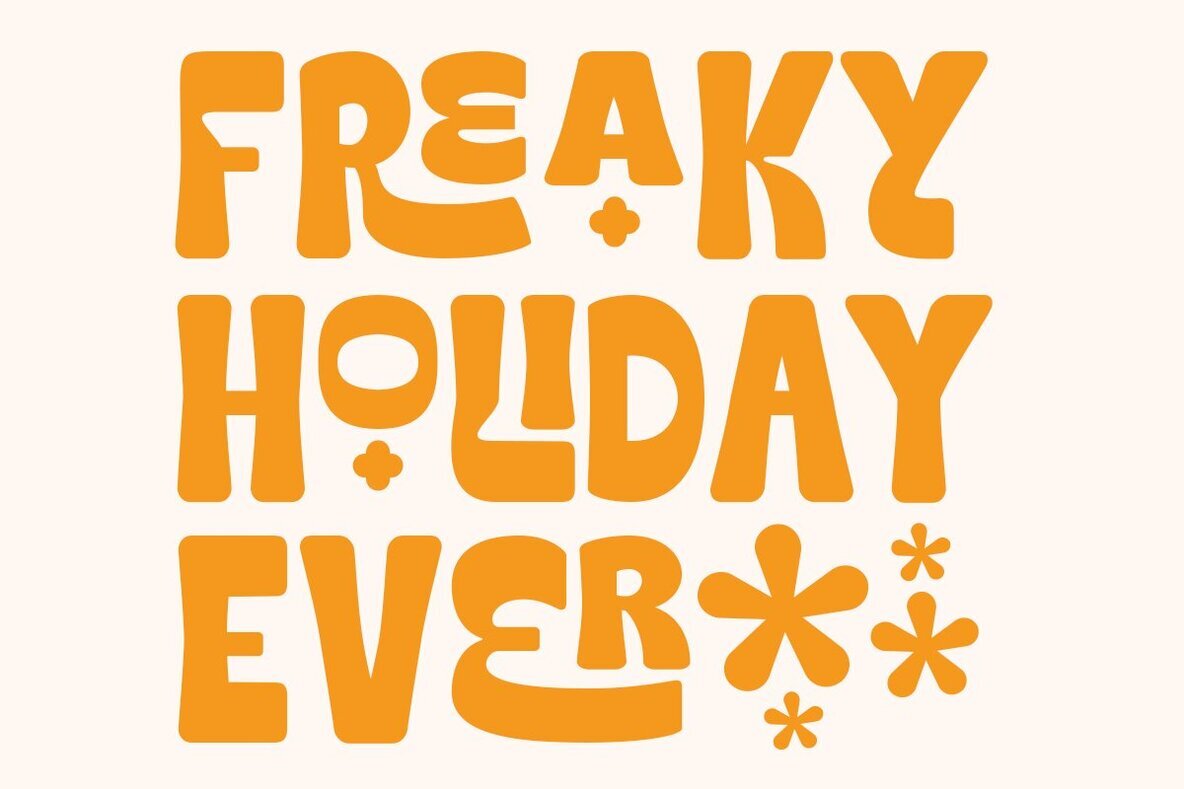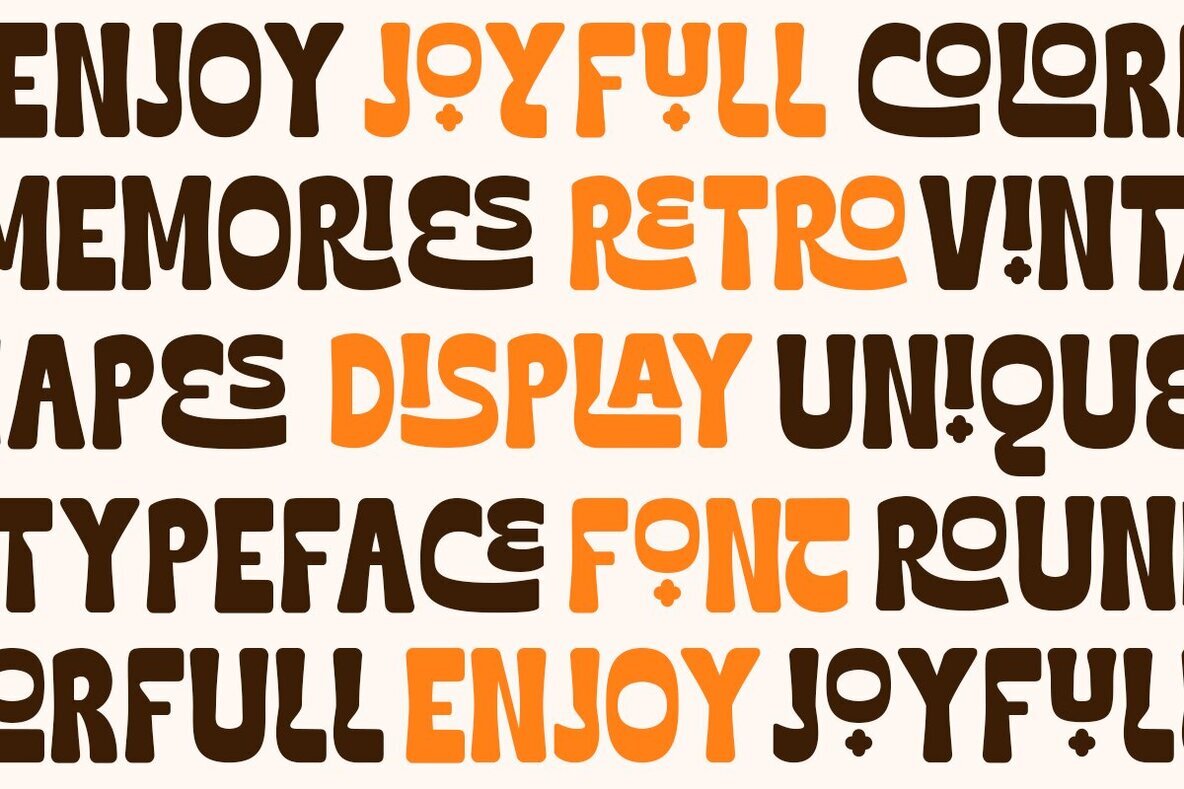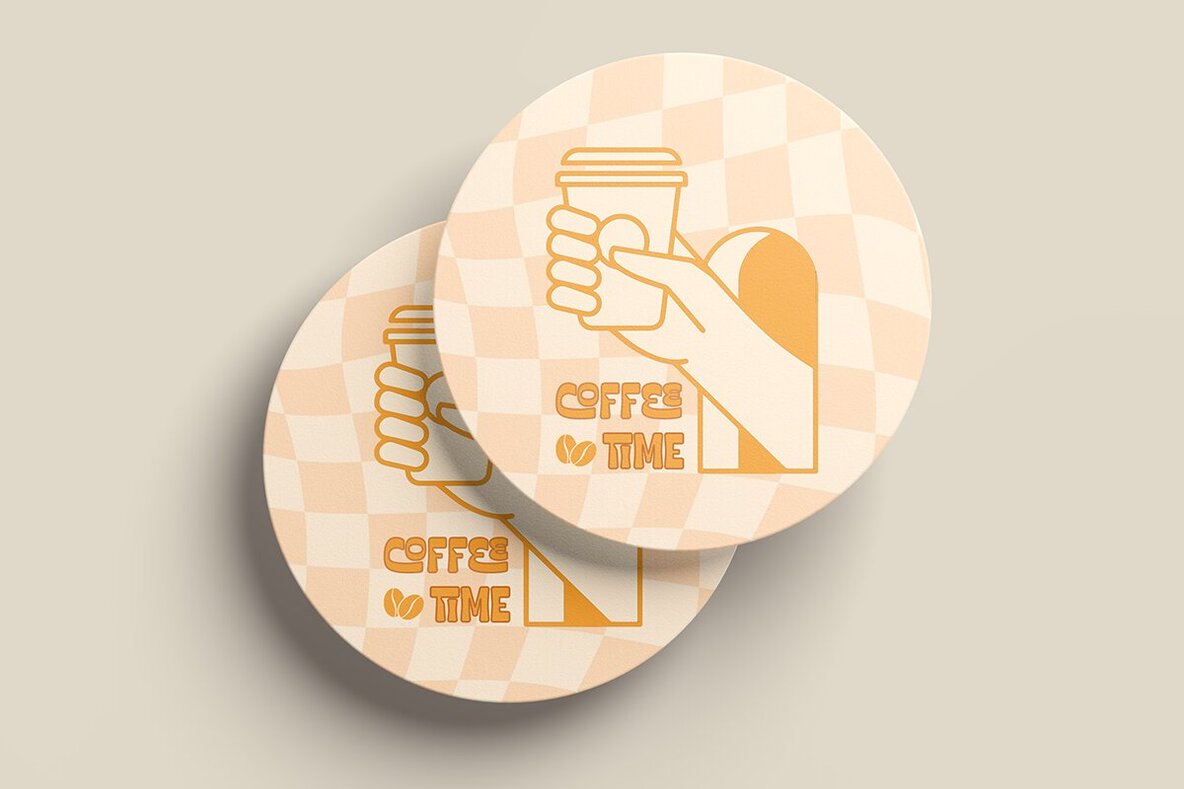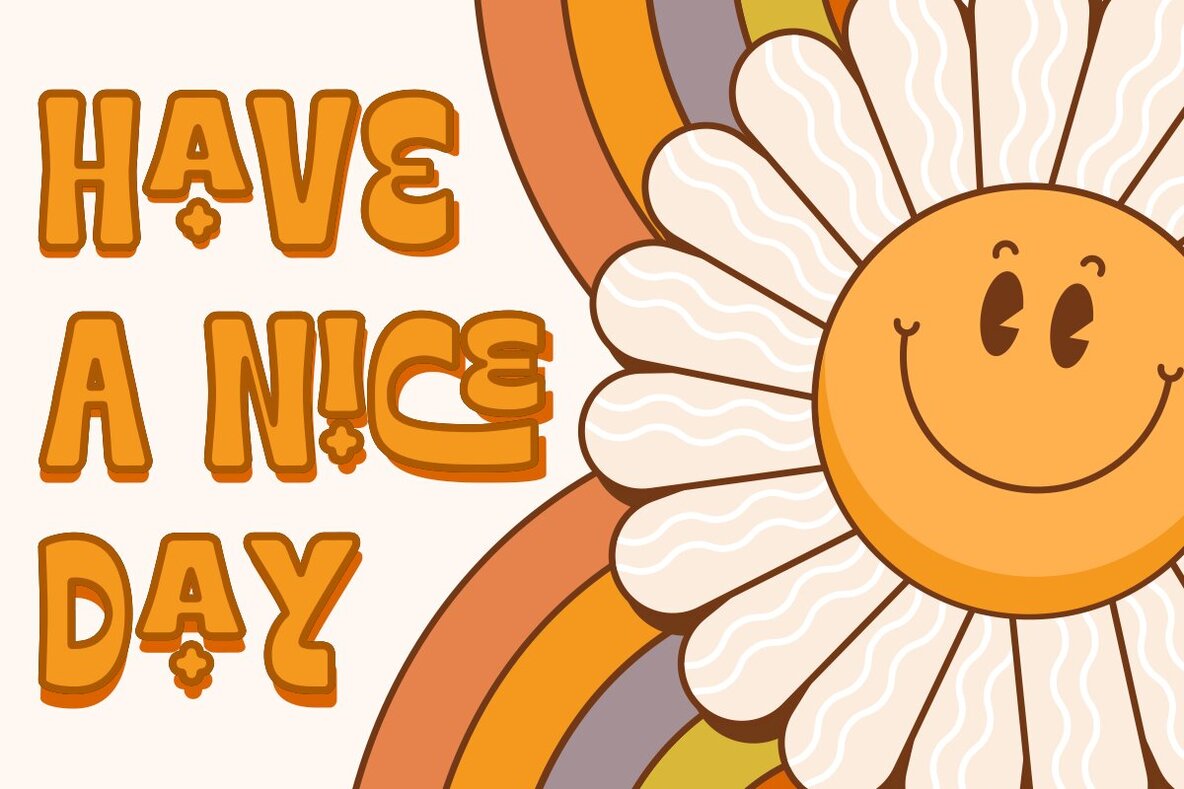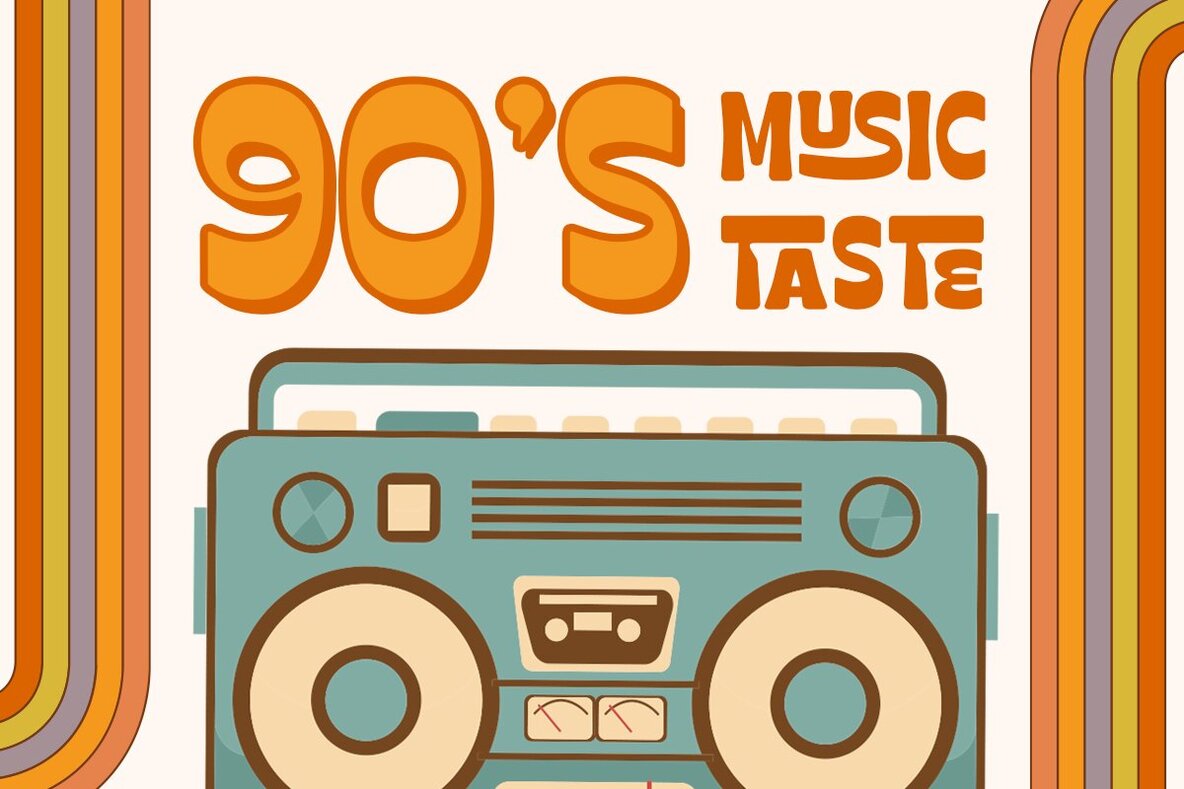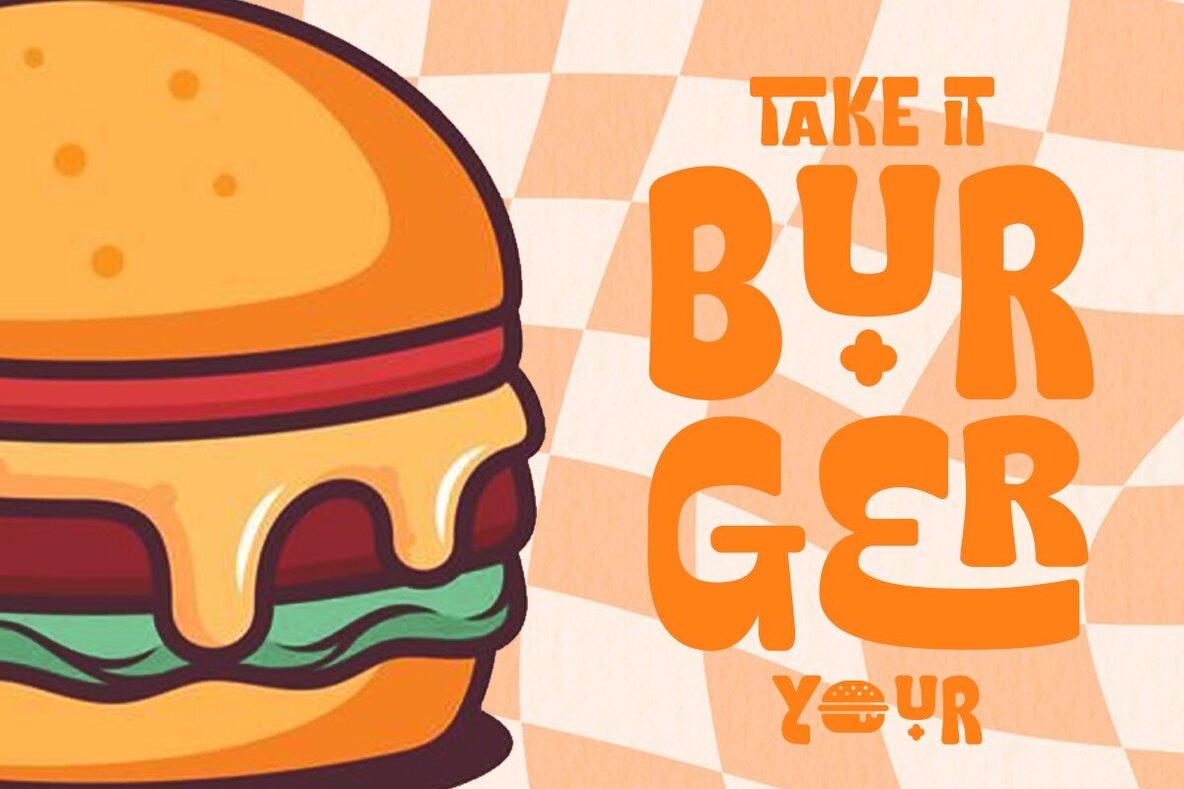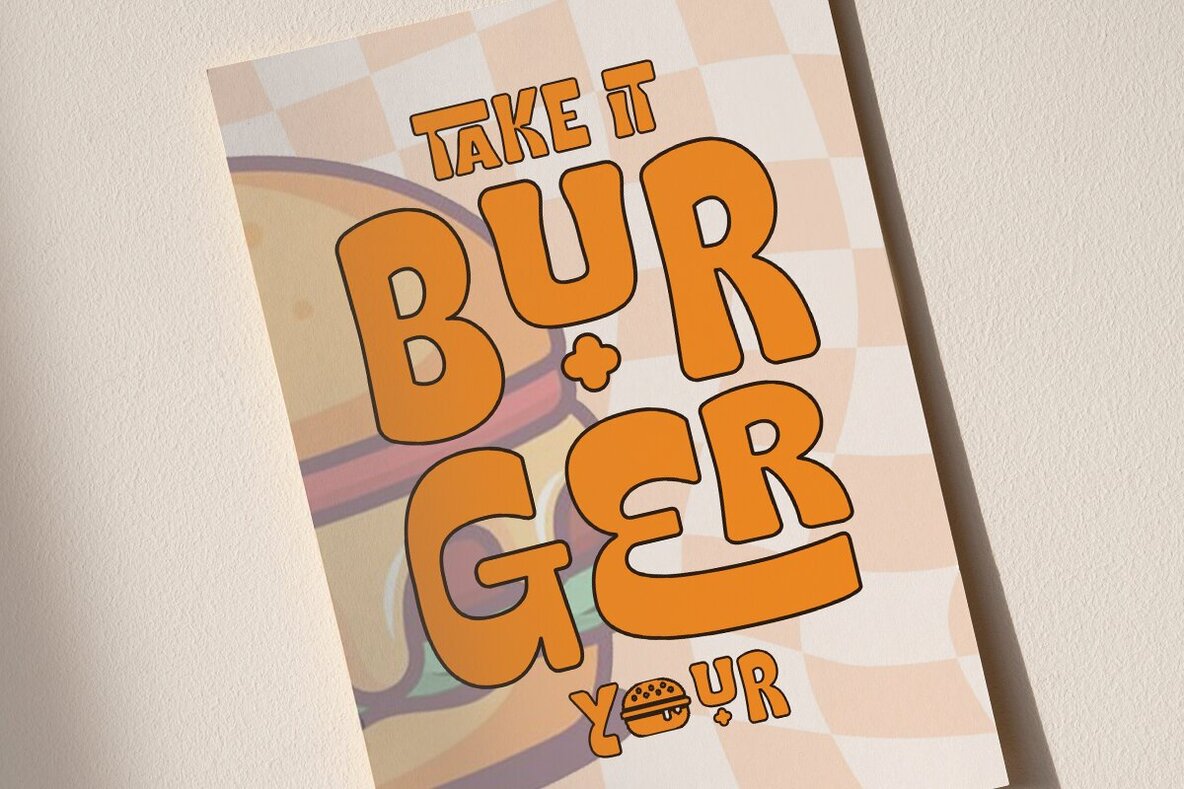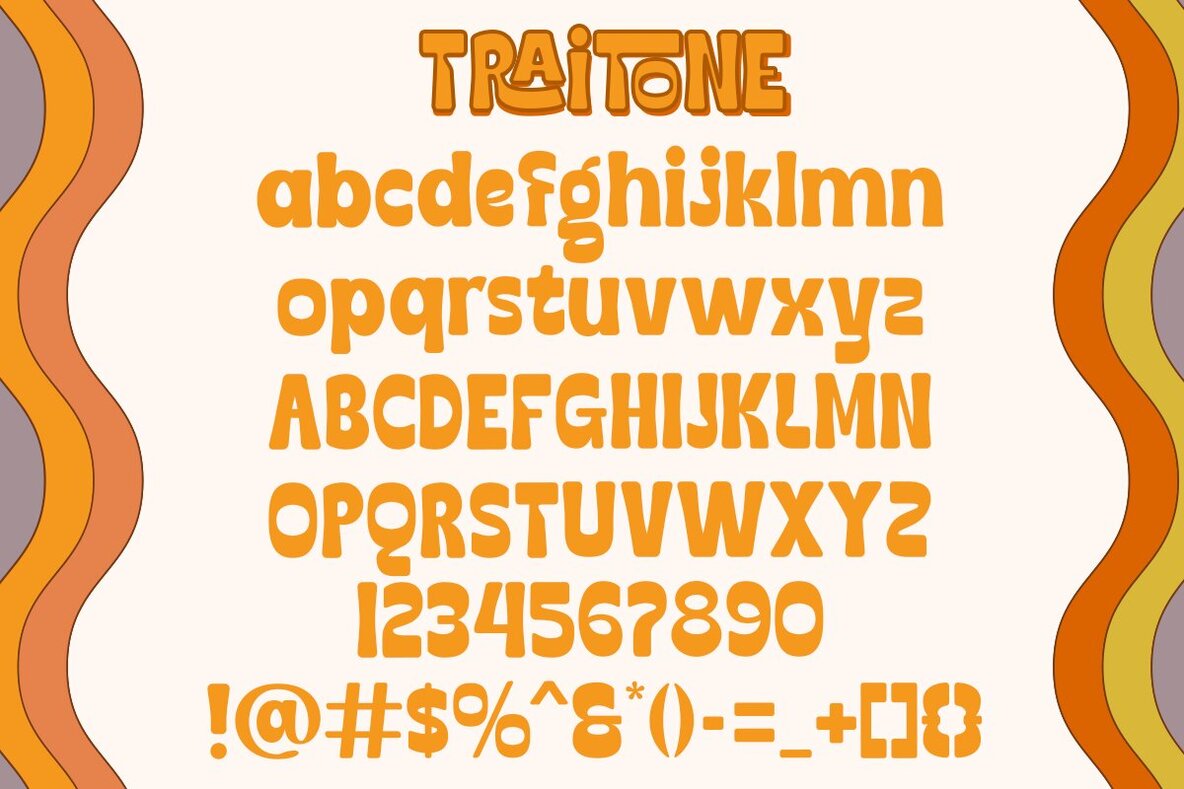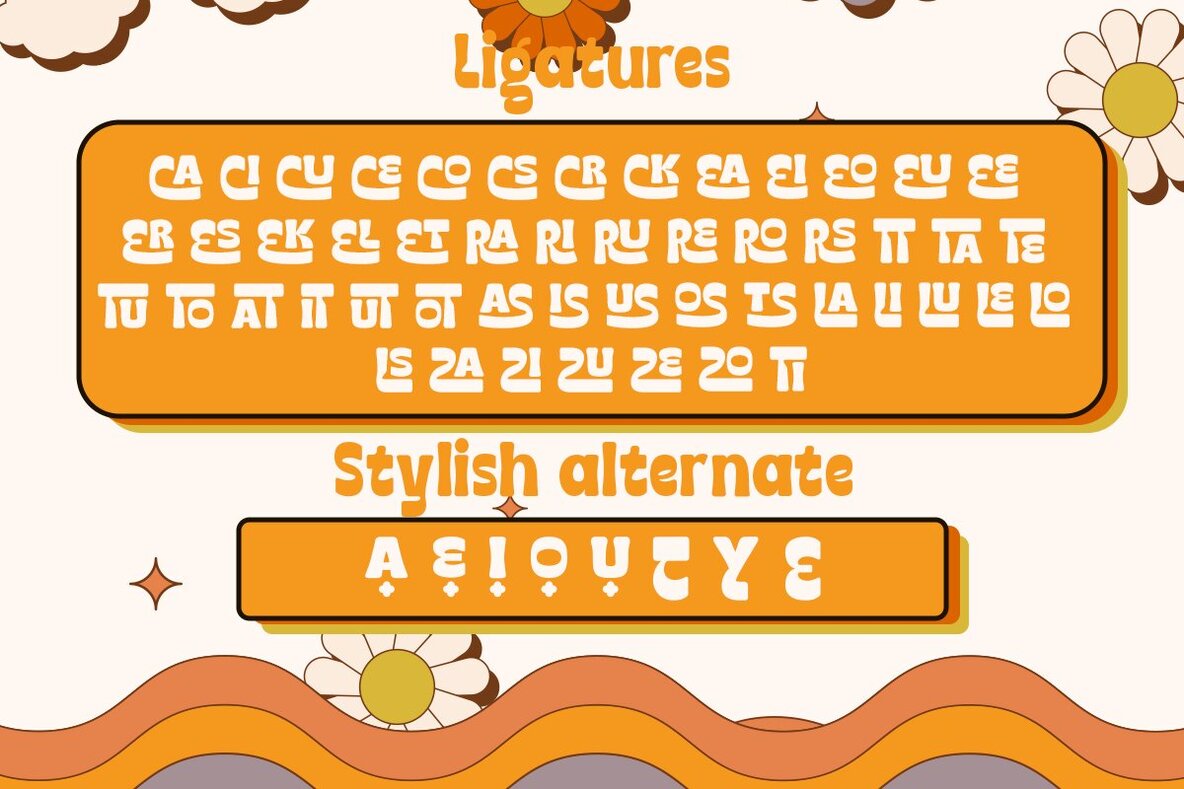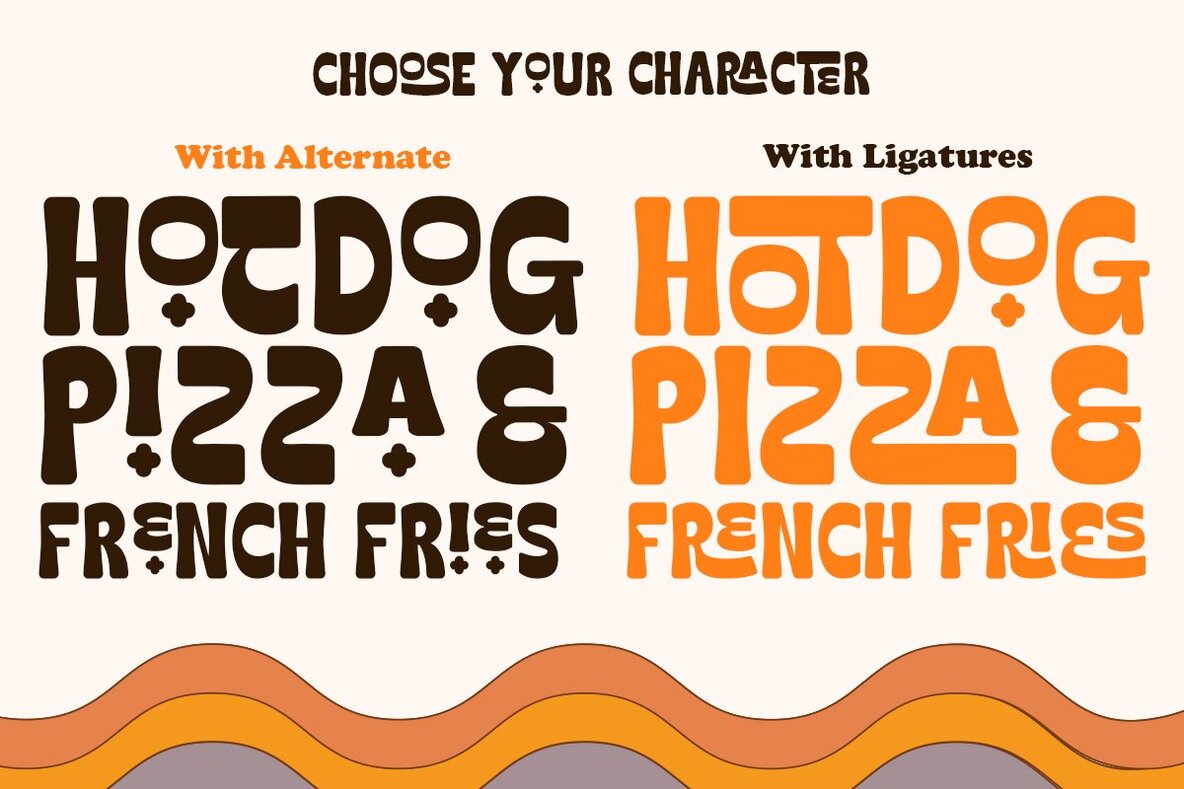
Traitone Font
Traitone Regular
Traitone, a Retro Display font that is perfect for making your project looks even more fun! It’s rounded and curvy shape makes it more unique. Traitone is very ideal for variety design projects, such as posters, Invitations, greeting cards, logo, and many more. Milkyway will jolly up you and your audiences! Get this font now to magnify your design. Traitone font will also include some features :